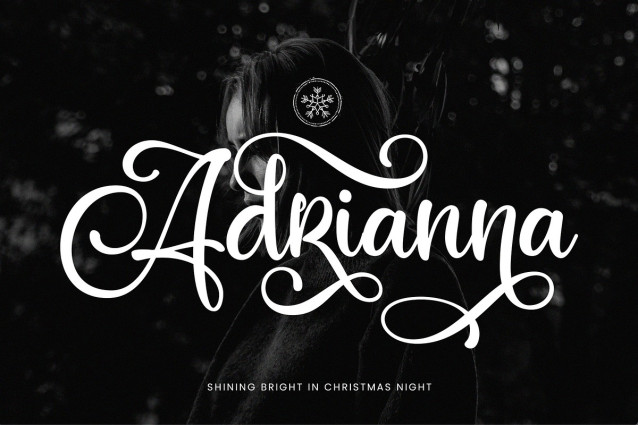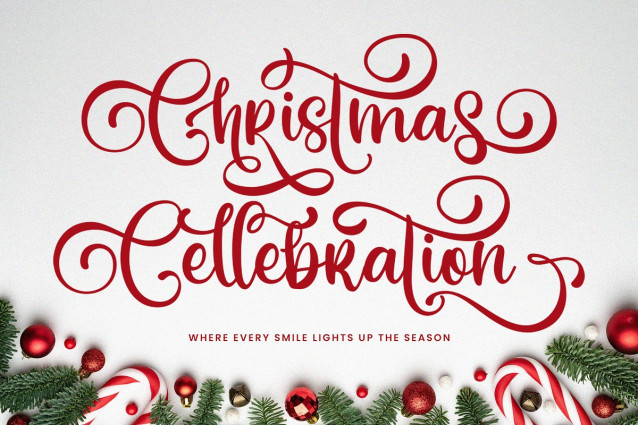
Chorister Script Font
Chorister Script Font, a cozy Christmas handwriting script that adds festive charm to your designs. Perfect for holiday cards, invitations, and seasonal branding projects!